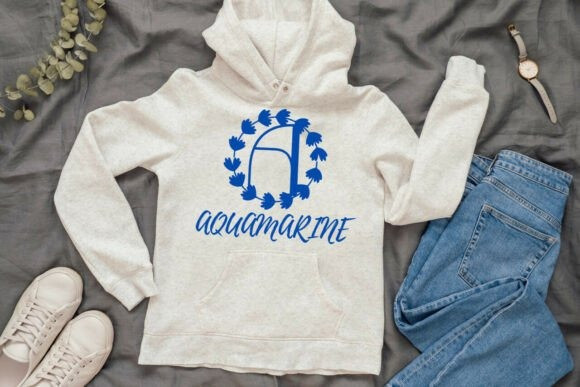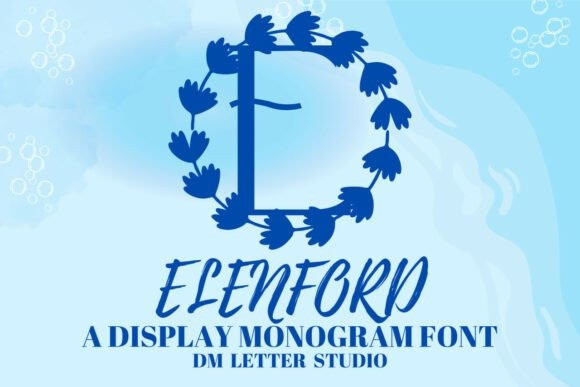
Elenford Monogram Font
Elenford Monogram Font turns simple initials into refined emblems with a calm, premium feel. Strokes are smooth and balanced. Counters stay open, so tiny tags, foil seals, and thumbnails read clearly. Use it for wedding suites, boutique logos, keepsake gifts, and elegant packaging. Moreover, Elenford pairs beautifully with modern serifs and clean humanist sans fonts, so your layouts look polished with very little effort.
Where the monogram font shines
Set single, double, or triple initials for logos, seals, menus, and place cards. Then frame them with laurel rings, oval borders, or fine-line rules to echo the graceful structure. Since proportions favor symmetry, you can compose neat, centered marks in minutes. As a result, your thumbnails stand out across marketplaces, and your listings stay consistent from invites to signage.
Fast setup, premium results
Design tips for Elenford Monogram
Keep initials large and let white space breathe. Pair the headline monogram with a quiet serif for body text or a soft sans for captions. Therefore, you can ddd micro shadows, a thin inner stroke, or a delicate frame for depth. Because the forms feel airy, textured paper and metallic accents raise perceived value. However, keep wording short so the monogram remains the hero.